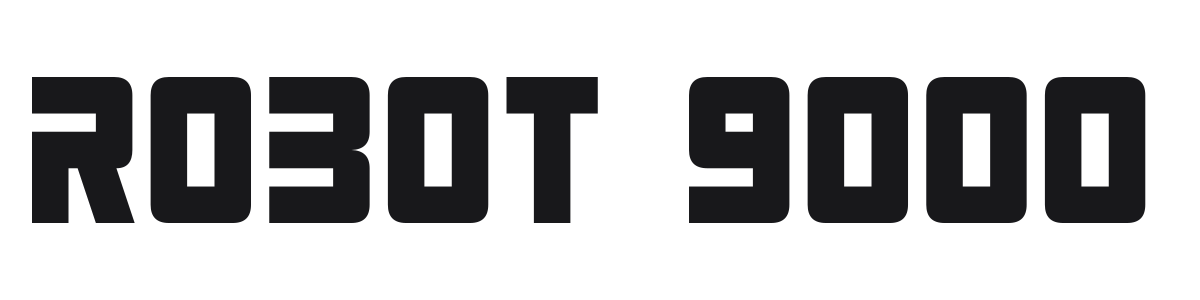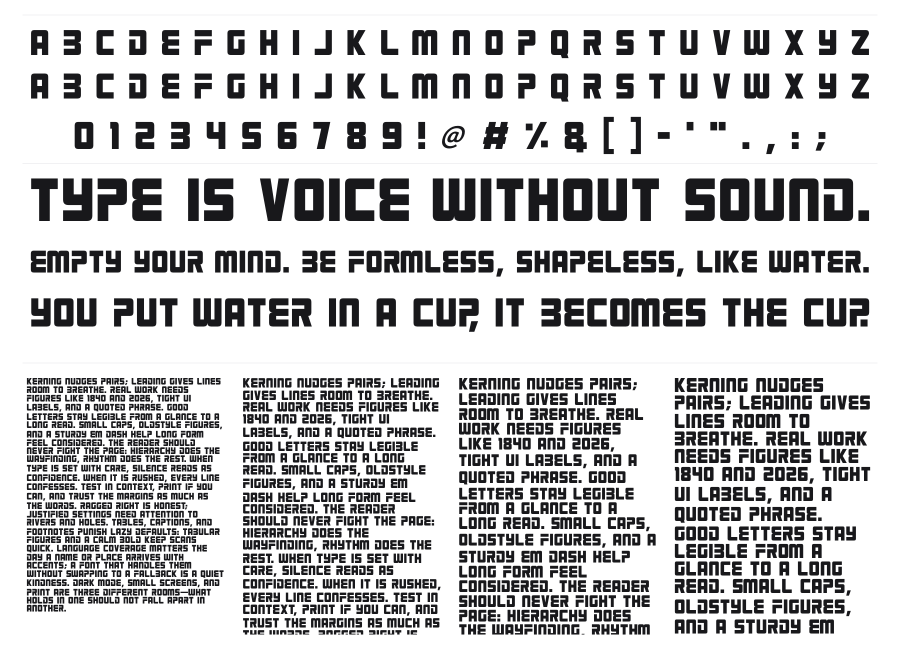
Robot 9000
Robot 9000 is a heavy condensed geometric sans built entirely on squared, angular forms that evoke machine precision and digital hardware. Every curve is flattened, every terminal is cut flat, and the result reads less like lettering and more like something assembled from circuit-board components. Strong at large sizes for gaming titles, tech branding, and anything that needs to feel built rather than drawn.